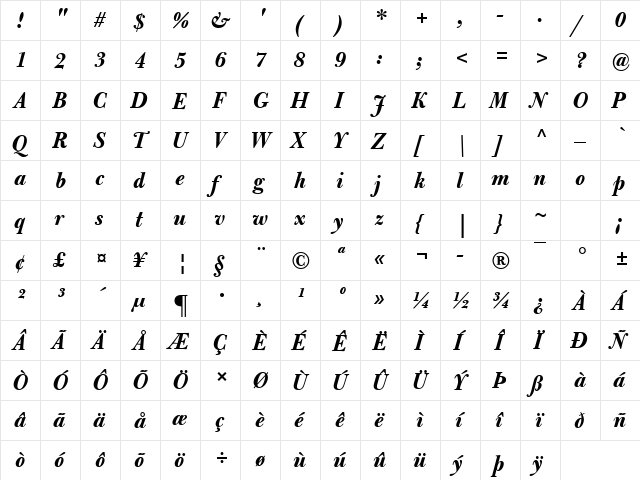
Bulmer MT Regular BoldItalic
Design Context for Bulmer MT Regular Typeface
Bulmer MT Regular is a composed and adaptable typeface that performs quietly and consistently across a wide range of design contexts. Its italic angle brings a sense of urgency and motion to the letterforms. The heavy weight commands attention and anchors typographic hierarchies.
Pro Tip: Use Bulmer MT Regular for emphasis, pull quotes, and subheadings where its slanted energy can add rhythm to the layout.